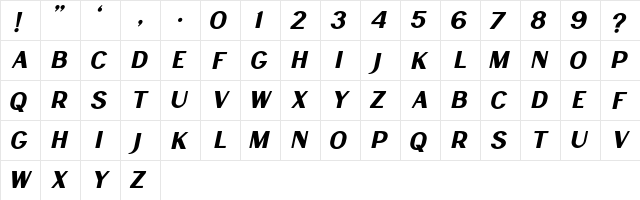
Lancaste Sans Slant Demo Regular
| Foundry | Runsell Studio |
| Designer | Edi Gunawan |
Design Context for Lancaste Sans Slant Demo Typeface
Lancaste Sans Slant Demo offers clean, dependable letterforms without strong stylistic allegiance, making it a practical choice for designers who need flexibility.
Pro Tip: Pair Lancaste Sans Slant Demo with a font of contrasting weight or personality to build a more expressive typographic hierarchy.